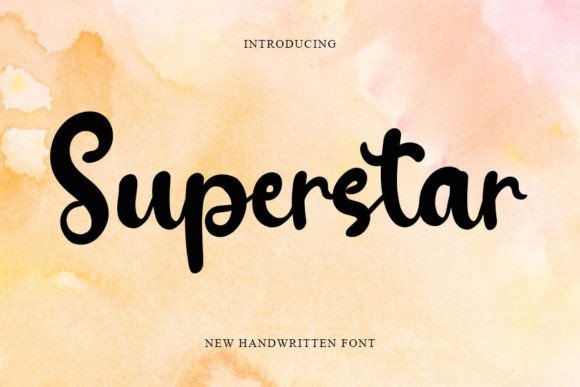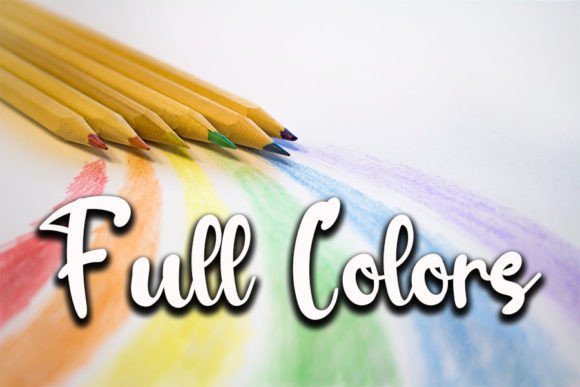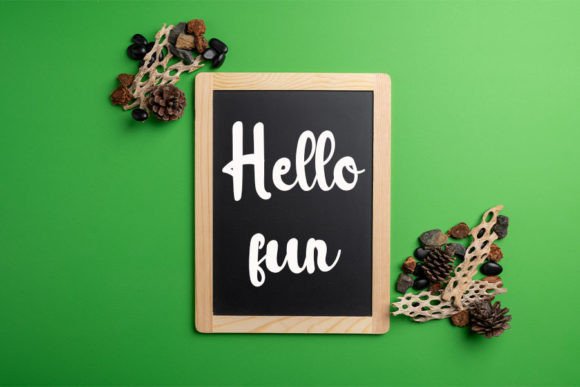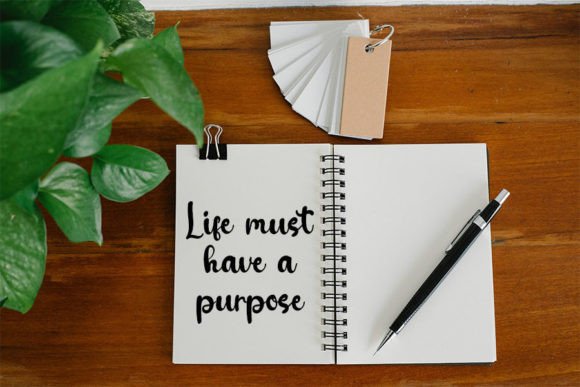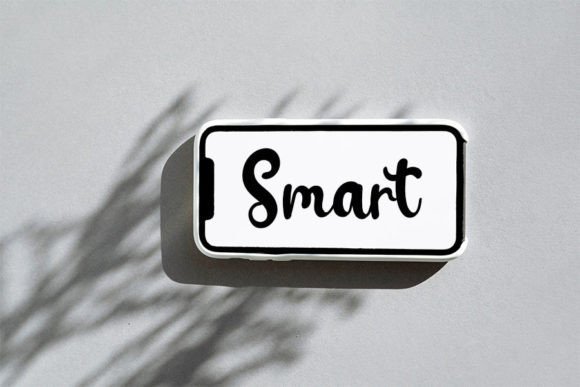
Superstar Font
About Superstar Font
Superstar font is a magical handwritten typeface designed with a unique blend of elegance and playful quirkiness. This font brings a clean, refined look with a subtle touch of character, making it ideal for designers and creatives looking to add a distinctive flair to their projects. Whether you’re crafting logos, building brand identities, or creating social media content, Superstar font offers the perfect balance of charm and professionalism.
Elegant and Magical Style
The elegance of Superstar font lies in its carefully crafted strokes that mimic natural handwriting but with a polished finish. It feels both authentic and artistic, with a slightly quirky personality that adds character without overwhelming your design. This makes the font incredibly versatile, able to complement formal branding while also fitting well with creative, fun, and casual projects.
Ideal for Logos and Branding
Superstar font shines brightest in branding and logo design. Its clean lines ensure readability while its unique style helps your brand stand out from the crowd. Whether you’re designing for fashion, beauty, lifestyle, or craft businesses, this font adds a personalized, handcrafted feel that consumers appreciate. Use Superstar font to communicate elegance, creativity, and a sense of approachability in your visual identity.
Perfect for Social Media and DIY Projects
In today’s digital landscape, engaging social media visuals are vital. Superstar font offers a charming style that works beautifully for Instagram posts, stories, banners, and other social media graphics. Additionally, its quirky yet elegant look makes it a favorite for DIY projects such as invitations, greeting cards, personalized gifts, and crafts. This font helps your projects feel warm, inviting, and professionally designed all at once.
Clean and Readable Typeface
Despite its artistic style, Superstar font maintains excellent readability across various sizes and mediums. The balanced letterforms allow it to be used effectively in both headlines and smaller text, ensuring your message is always clear. This quality makes it an excellent choice for print, digital, and web-based designs.
Why Choose Superstar Font?
Superstar font offers a perfect mix of elegance, charm, and uniqueness. Its handmade appeal paired with clean lines makes it a versatile choice for a broad range of projects. By incorporating Superstar font into your design toolkit, you gain a reliable typeface that enhances logos, branding, social media content, and DIY crafts with style and personality.